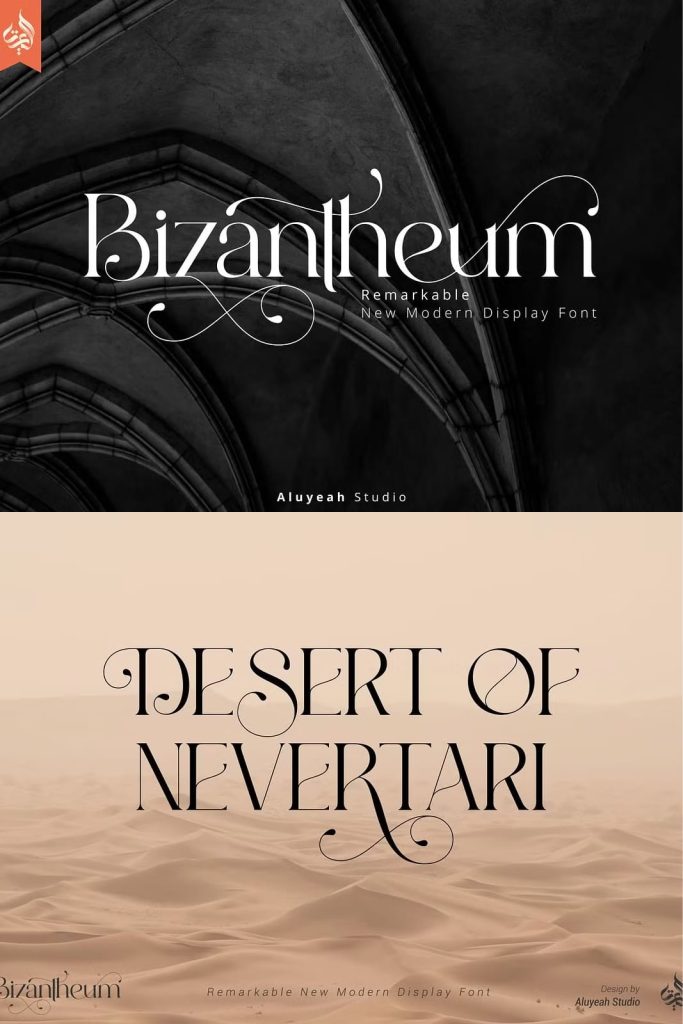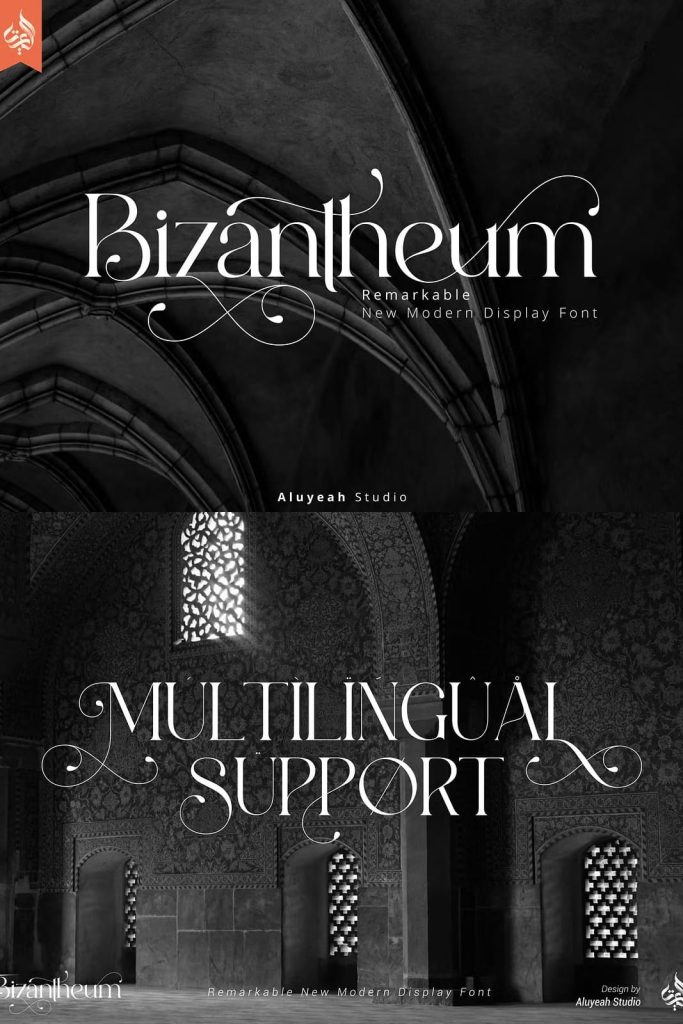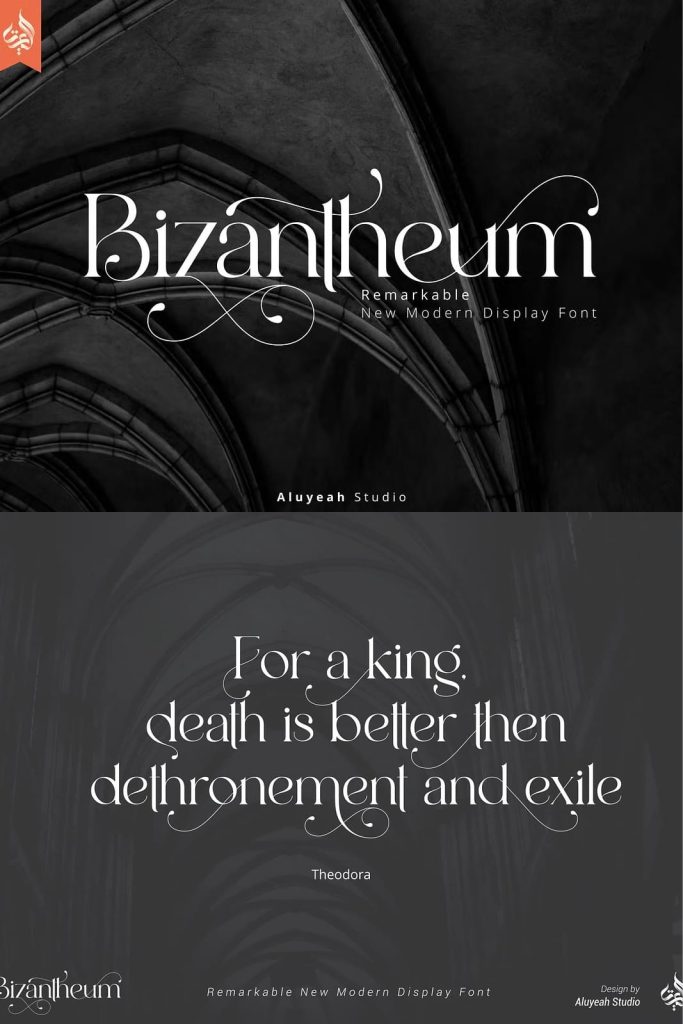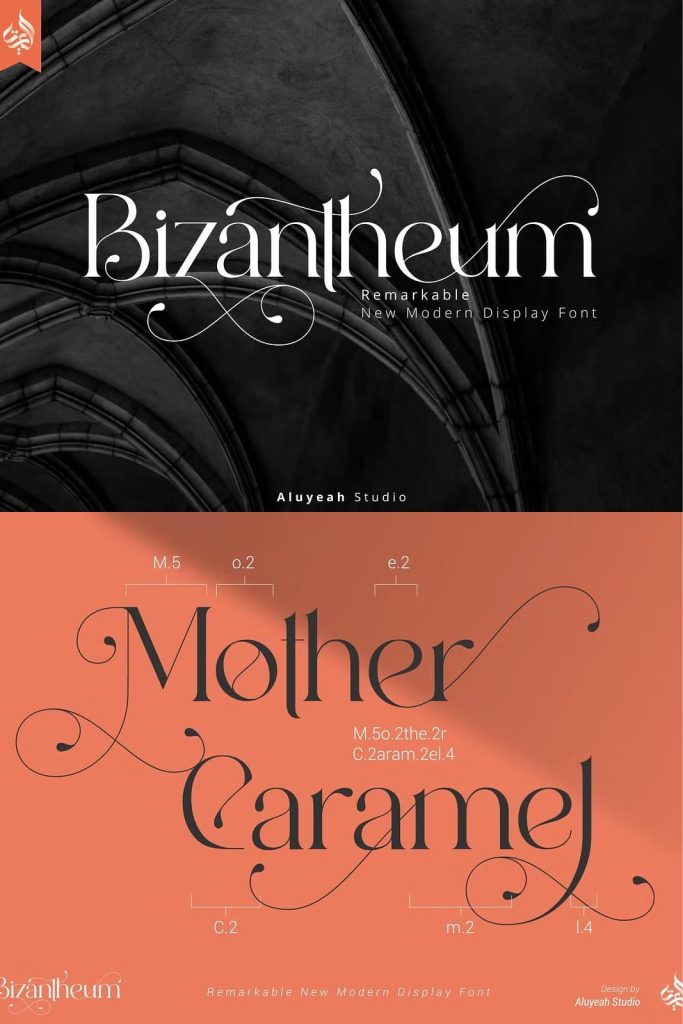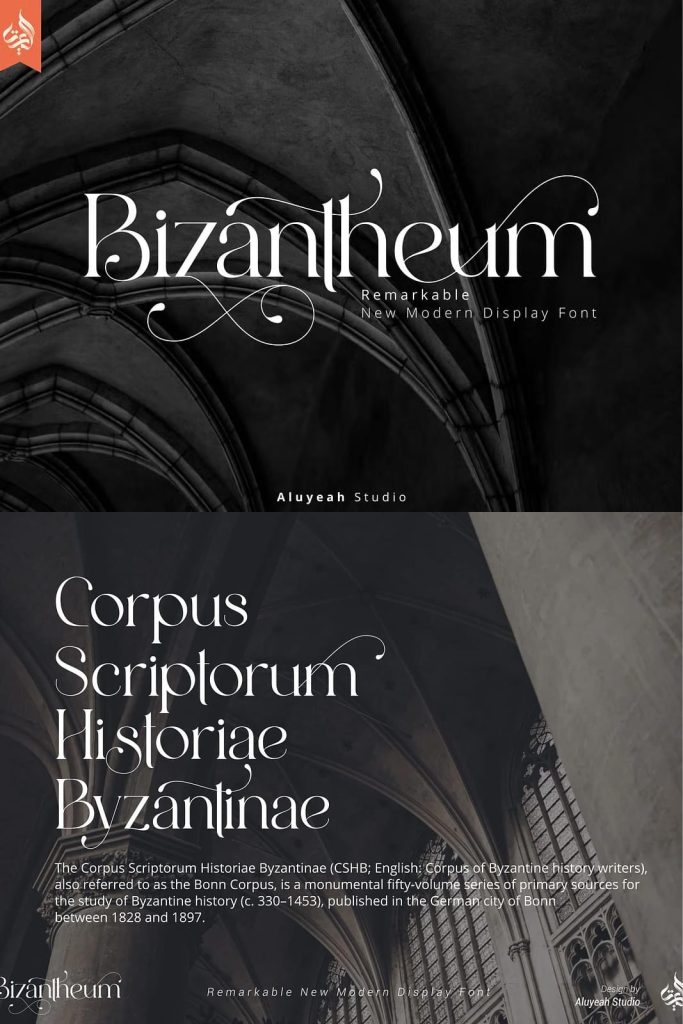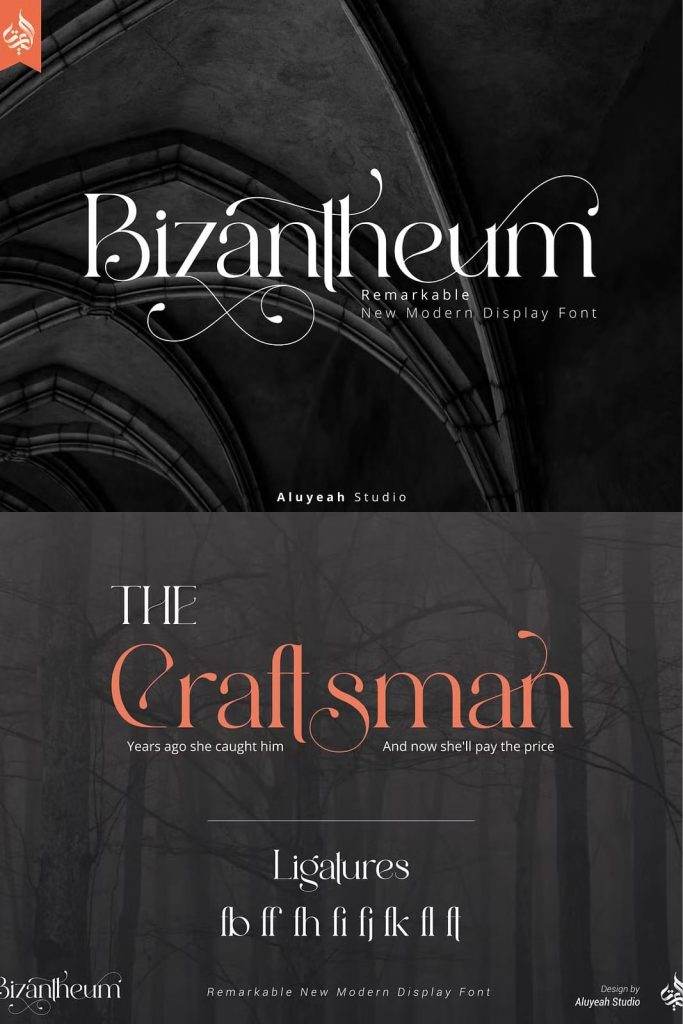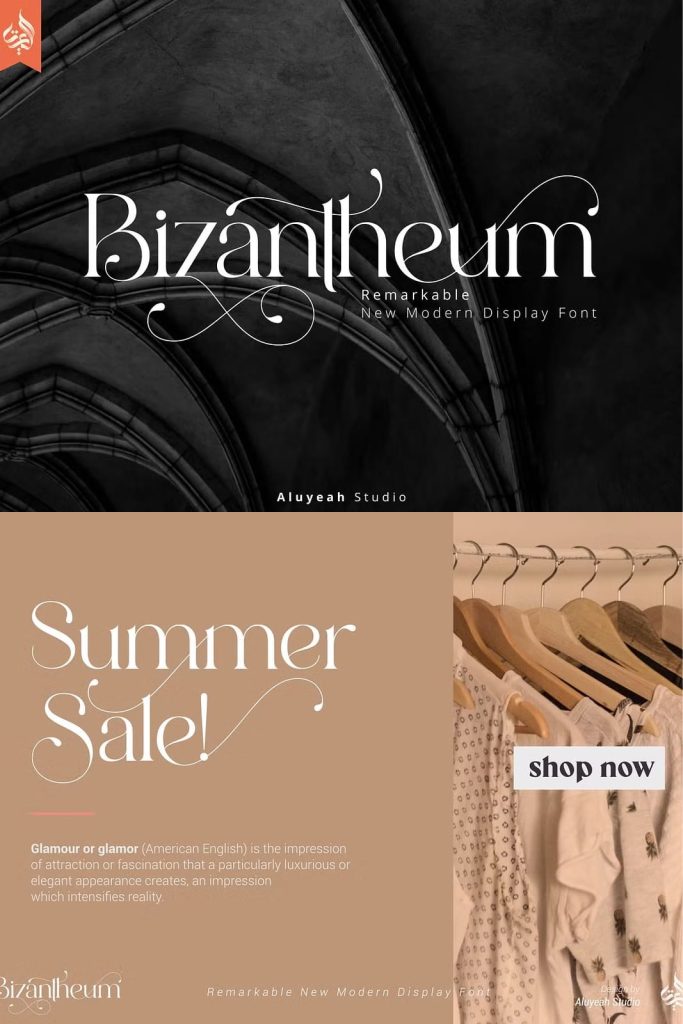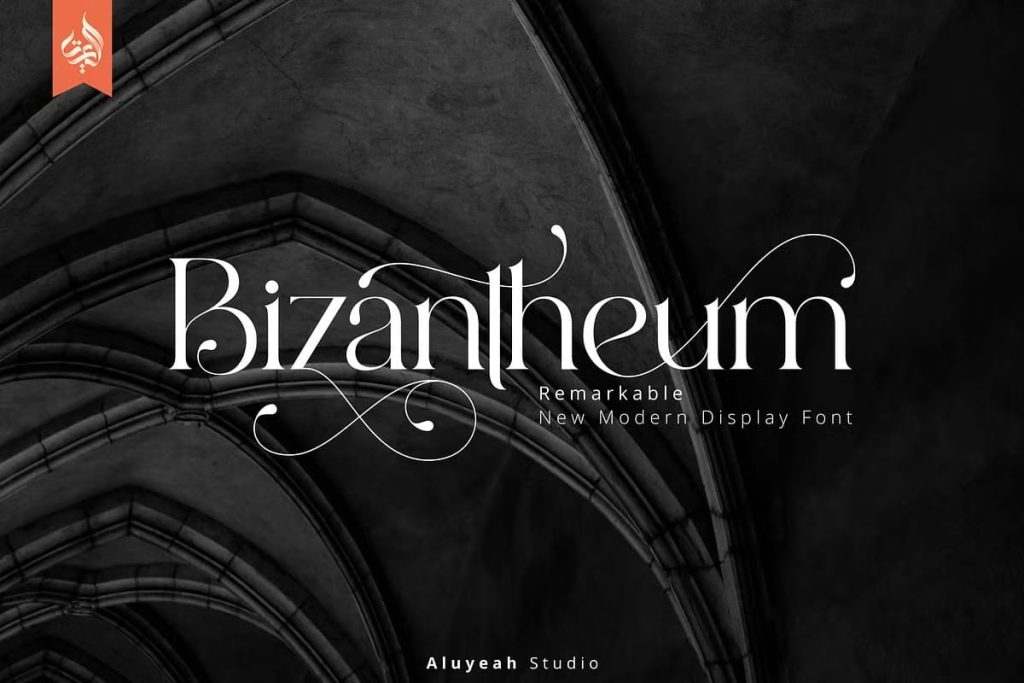
Bizantheum
Bizantheum, remarkable new modern display font. Inspired by the majesty and mystique of the Byzantine era buildings. Coming with 130+ stunning and super easy to use alternates.
Very suitable for magazine, headline, website, ads, product package and all type of design project you have.